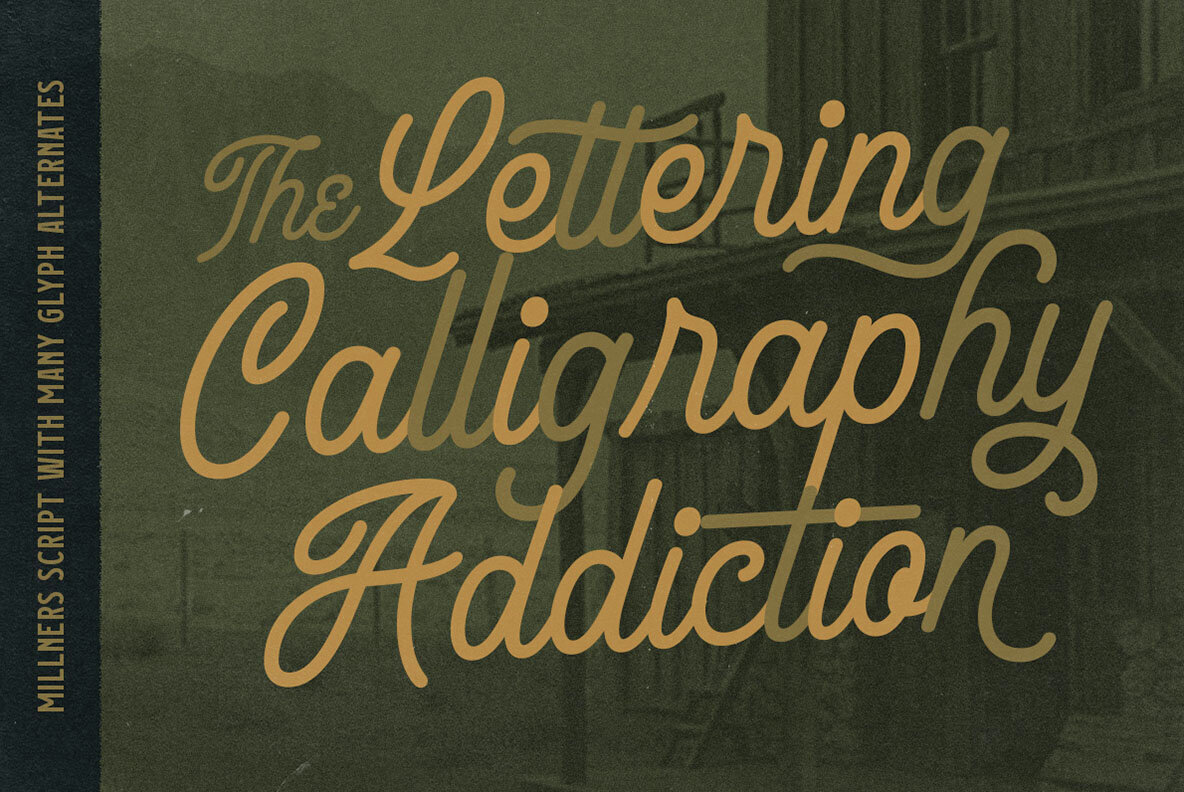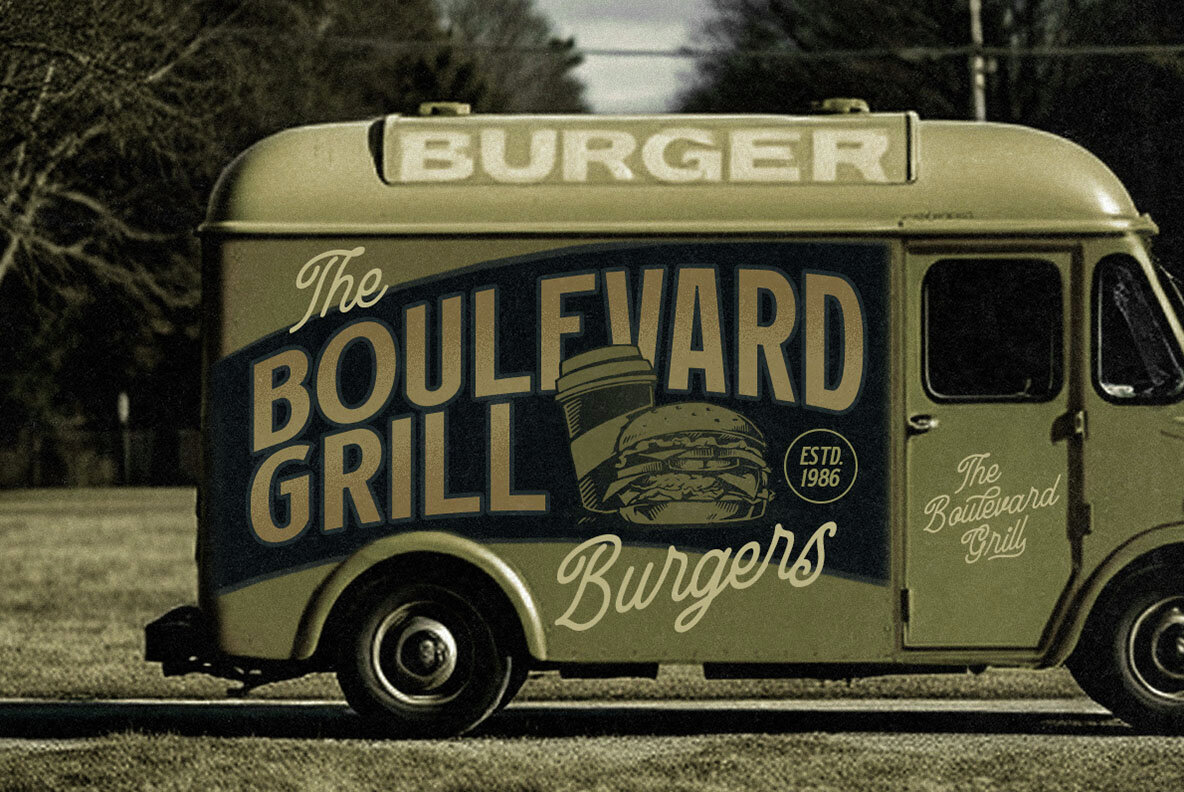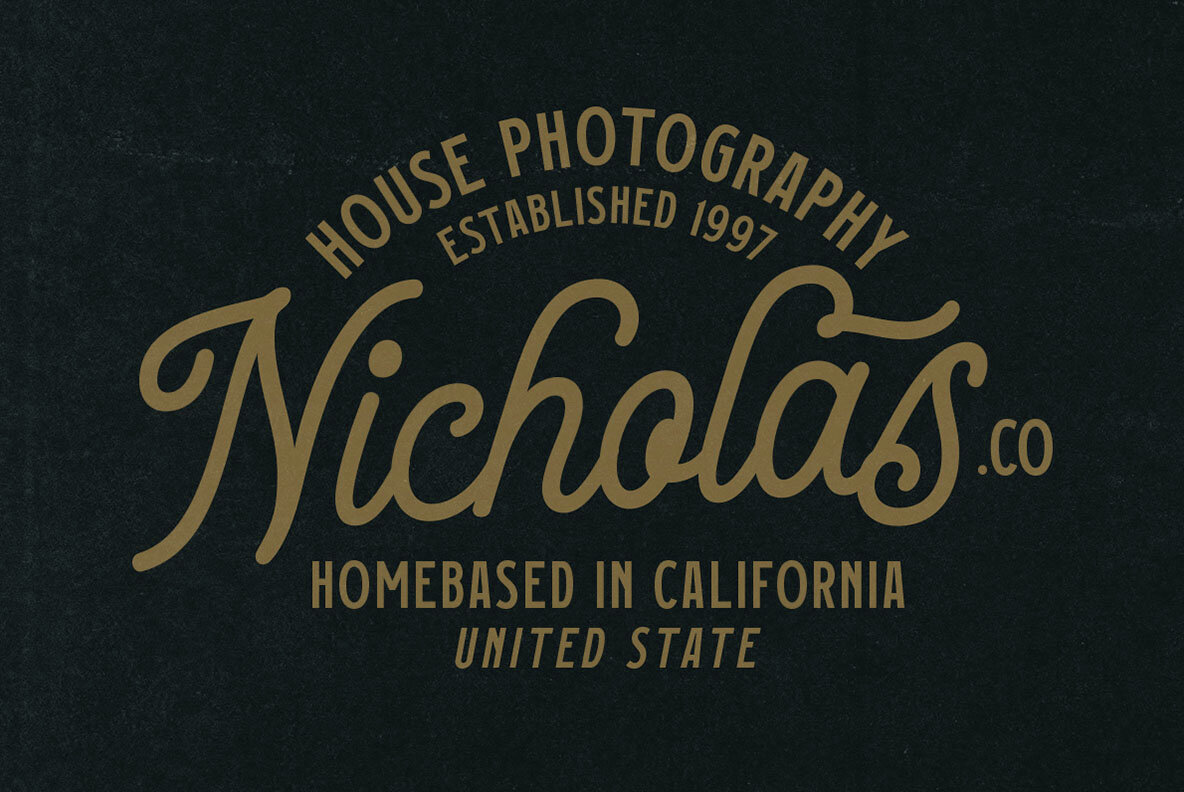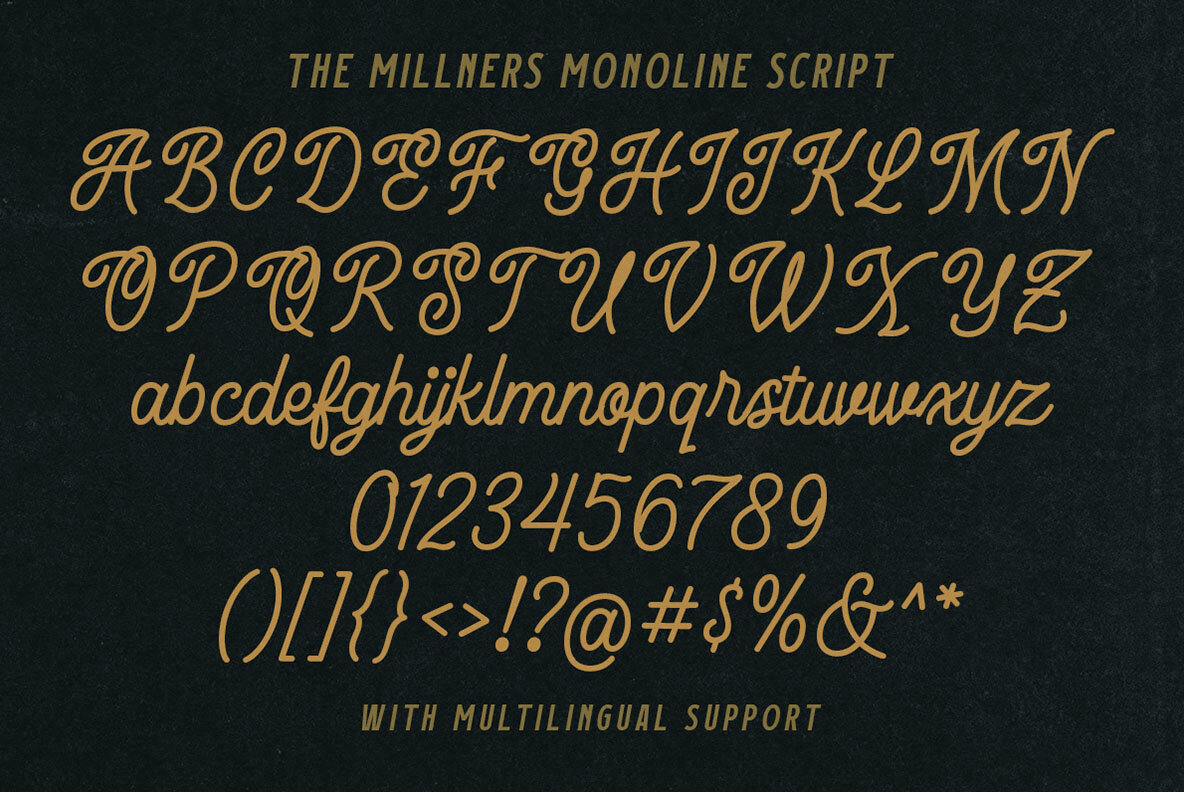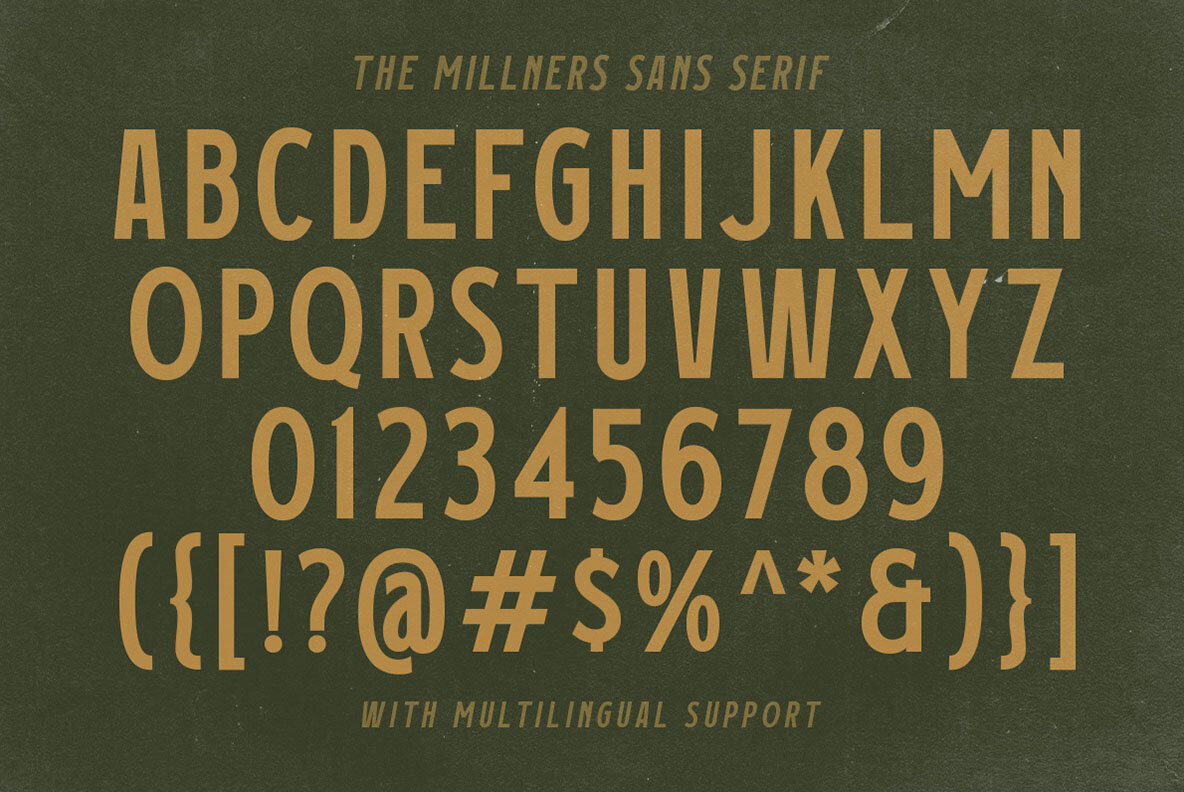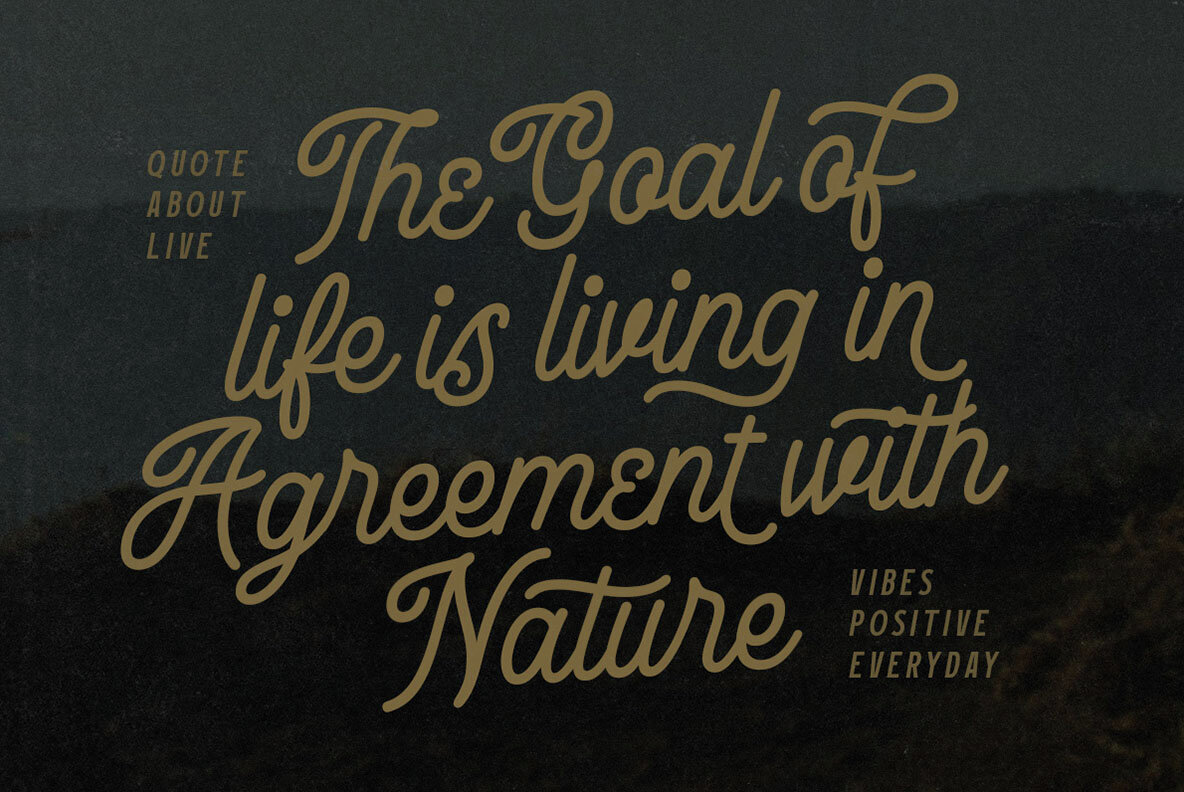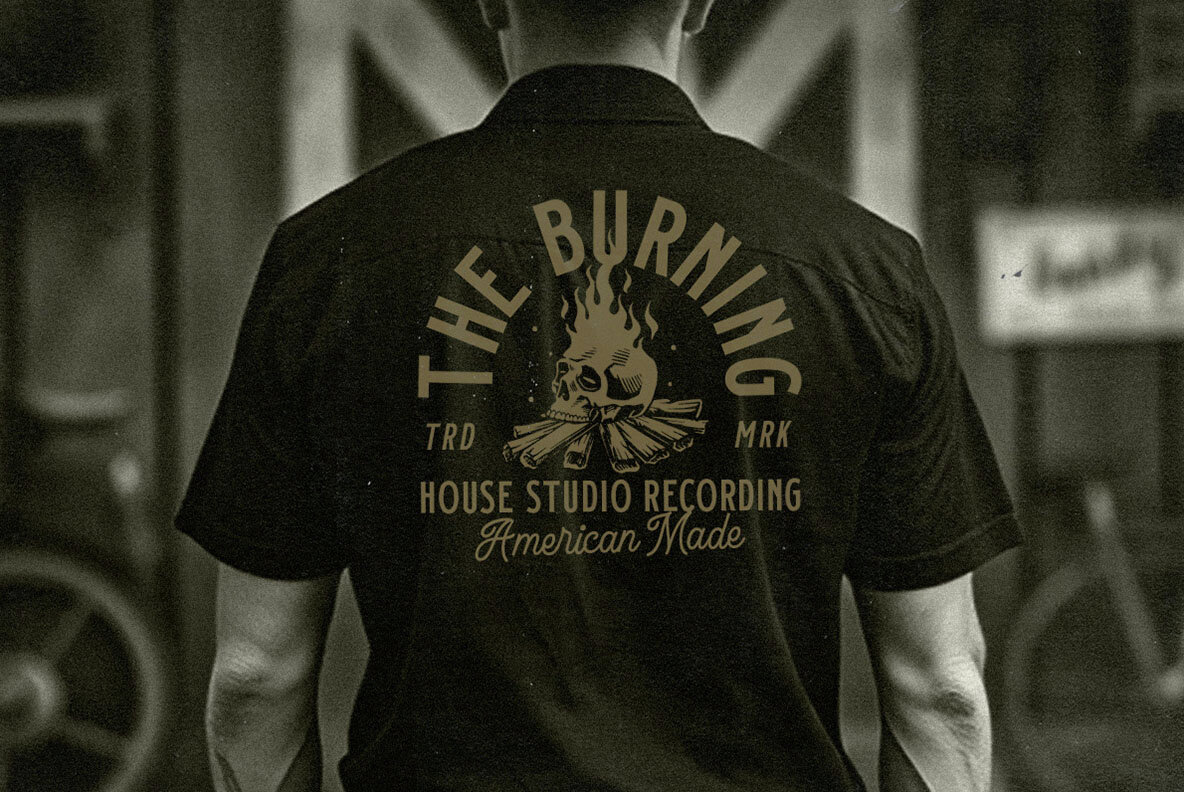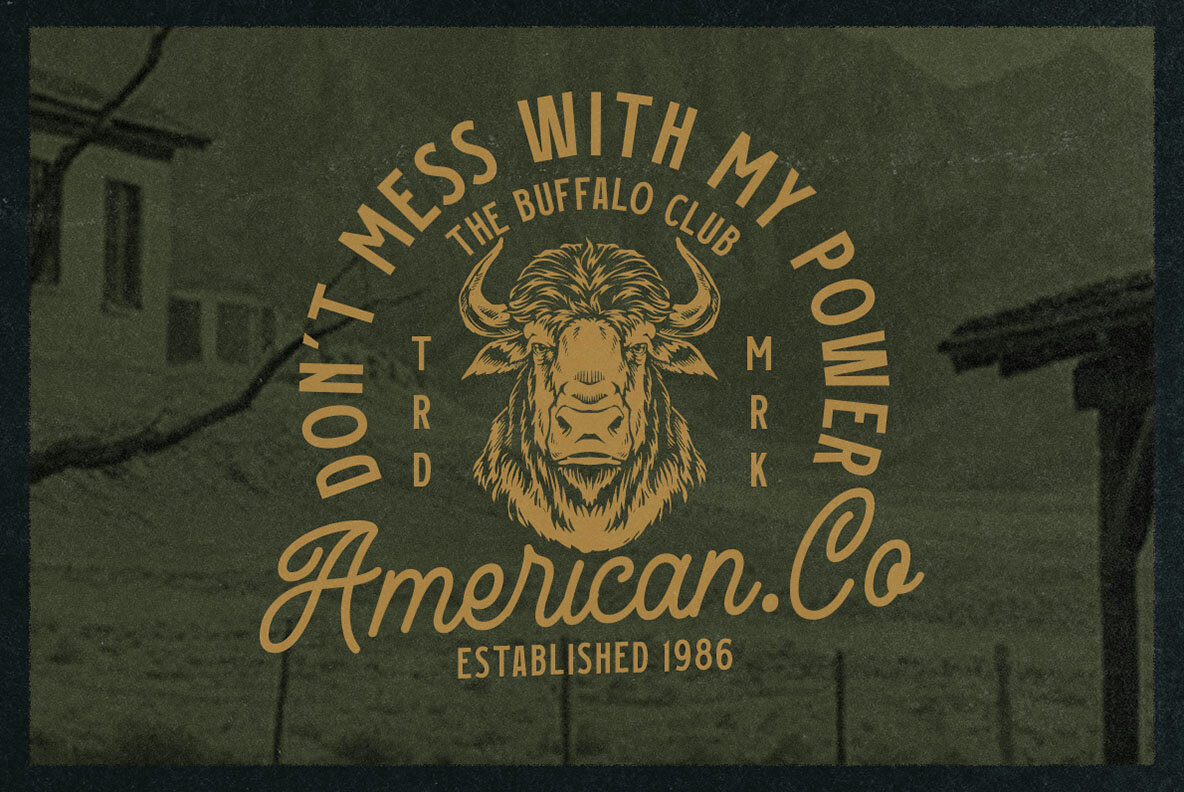
The Millners Font
Introducing, The Millners, a pair of hand drawn sans serif and monoline script with a touch of vintage look and feel. This type of font perfectly made to be applied especially in logo, headline, signage and the other various formal forms such as invitations, labels, logos, magazines, books, greeting / wedding cards, packaging, fashion, make up, stationery, novels, labels or any type of advertising purpose. Features : We highly recommend using a program that supports OpenType features and Glyphs panels like many of Adobe apps and Corel Draw, so you can see and access all Glyph variations.